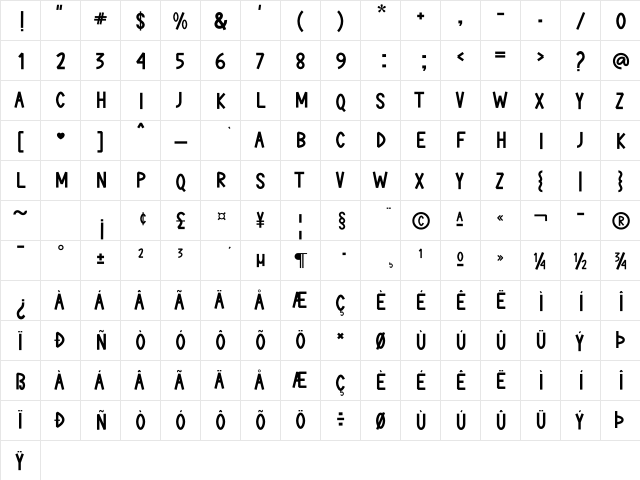
Thankful Hearts Regular
| Designer | deedeetype |
Design Context for Thankful Hearts Typeface
Thankful Hearts takes a measured approach to typography — its balanced proportions and neutral character make it a reliable workhorse for both digital and print work.